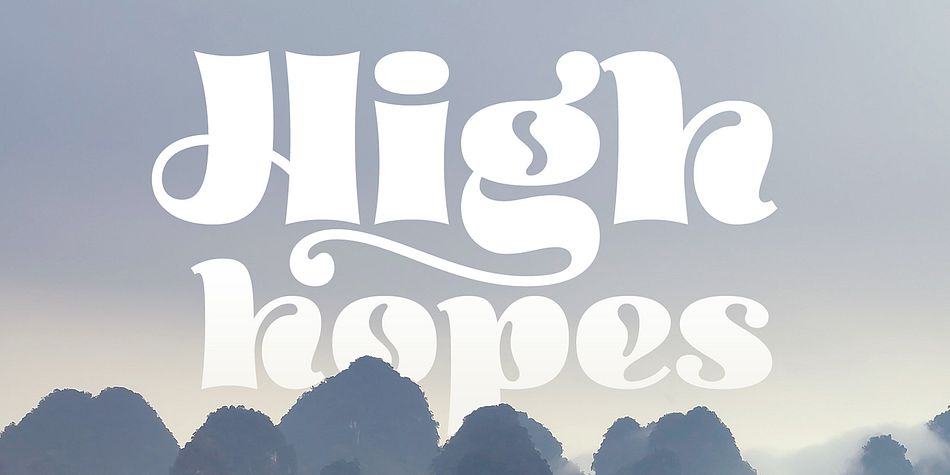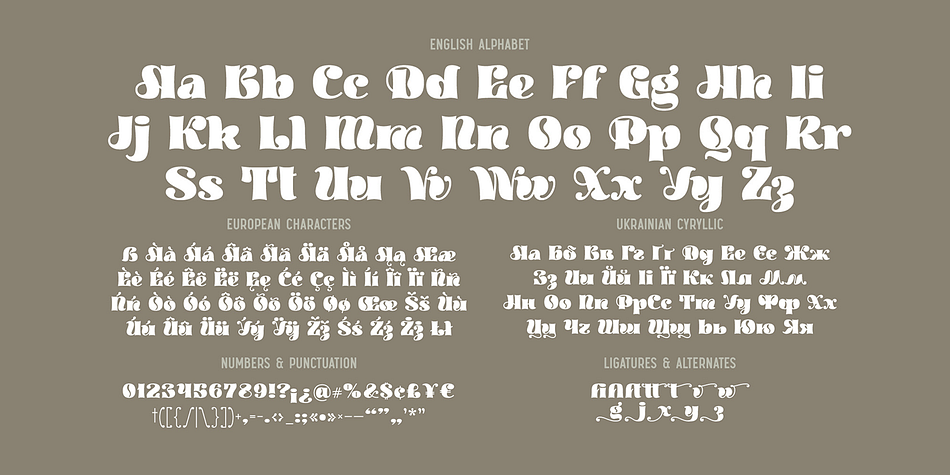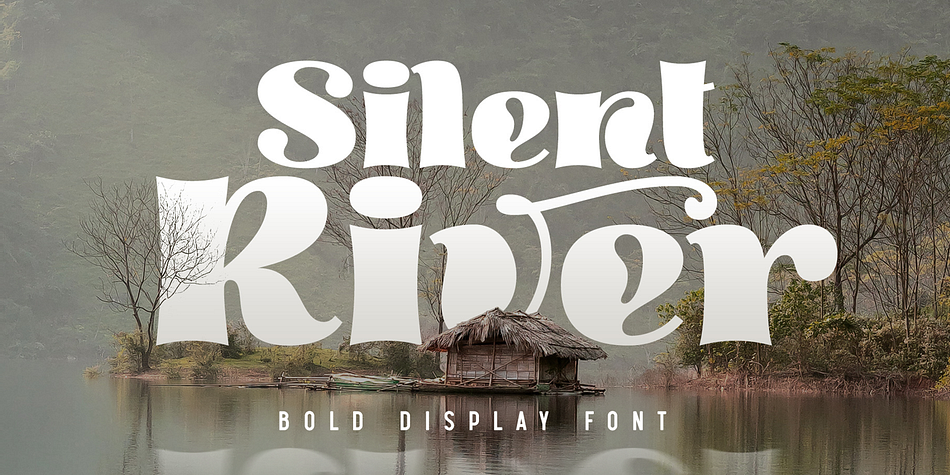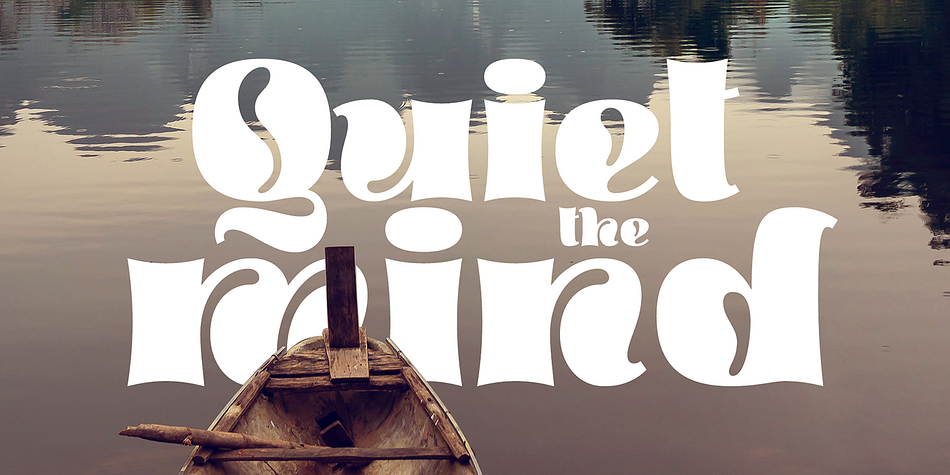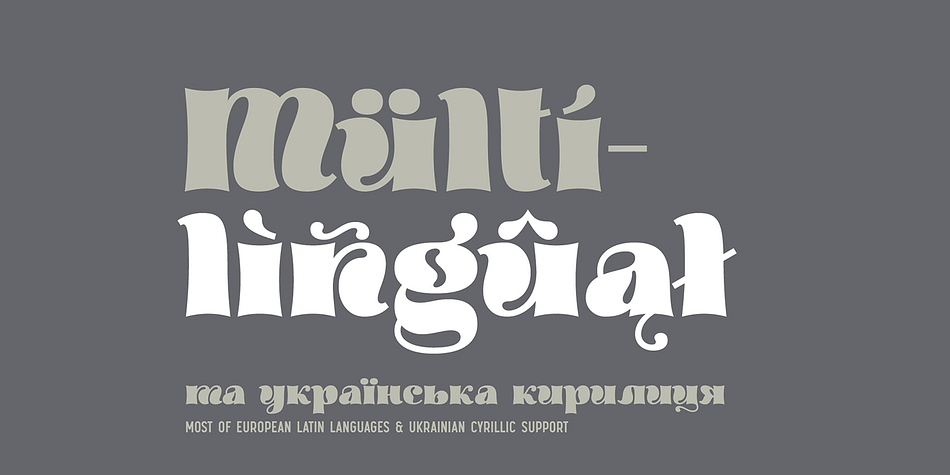
Designed by Gleb Guralnyk, Silent River is a display and retro font family published by Gleb Guralnyk.
Hi, presenting a display font Silent River. It’s a bold decorative font with nice classic shape. Silent River typeface supports most of the european languages and also has ukrainian cyrillic characters. Also there are an extra characters with modifyed letters shape, such as ligatures and alternates. Make sure that your app does support an OpenType features to access this extra characters.